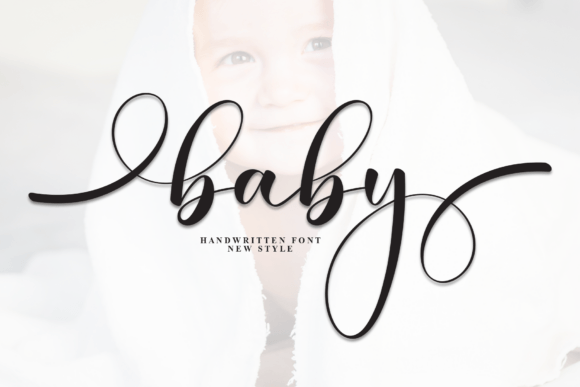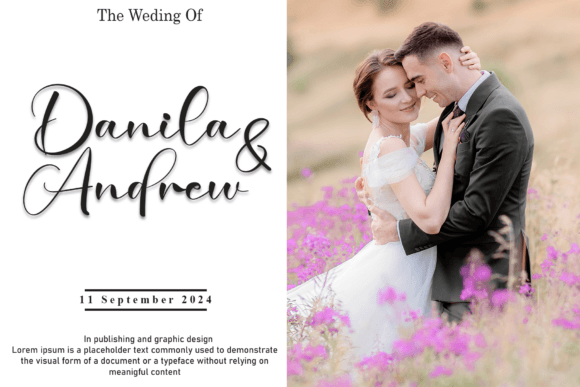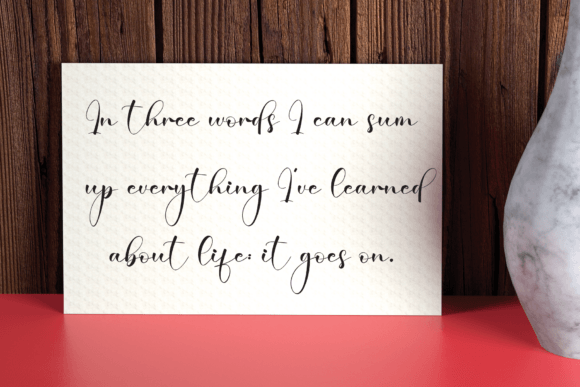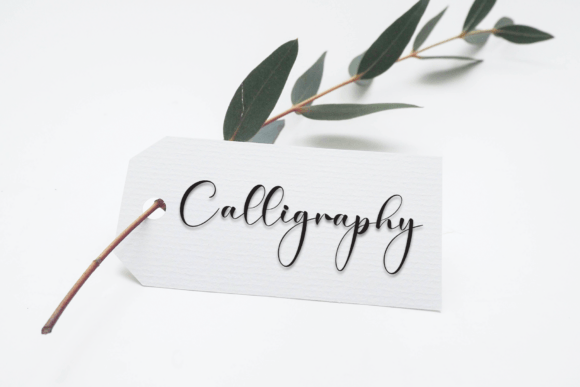
Baby Font
Baby Font is a charming handwritten typeface that captures a playful and whimsical feel. Its letters are soft and round, making it perfect for invitations, nursery decor, or anything related to babies and children. The friendly style adds a warm touch to any project, creating a cozy and inviting atmosphere.